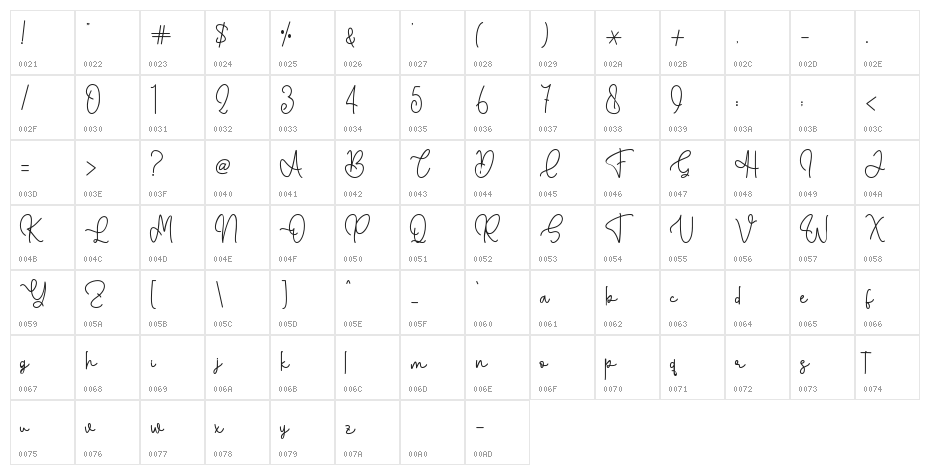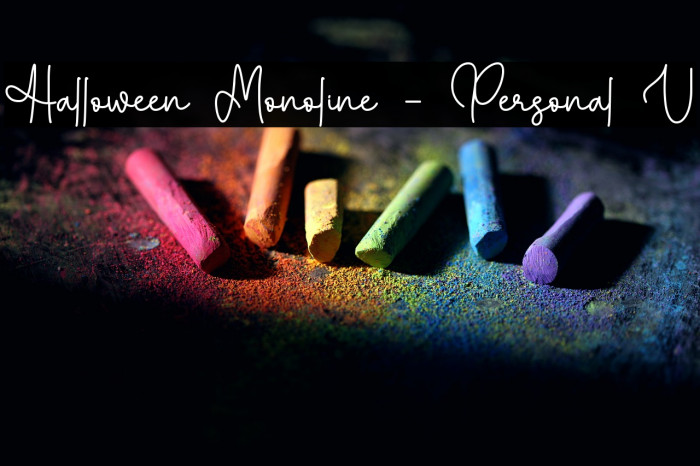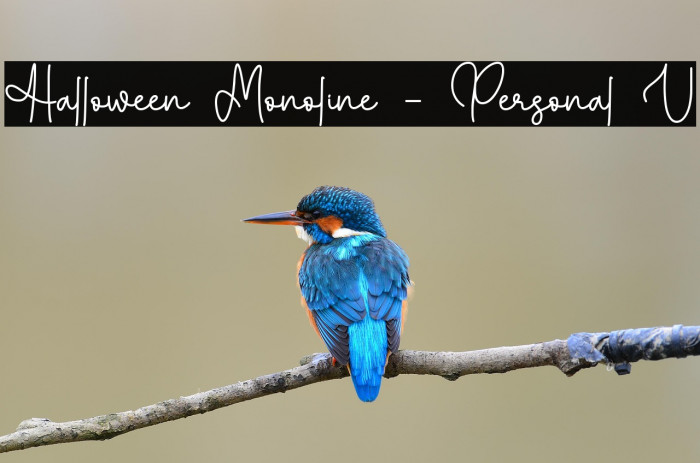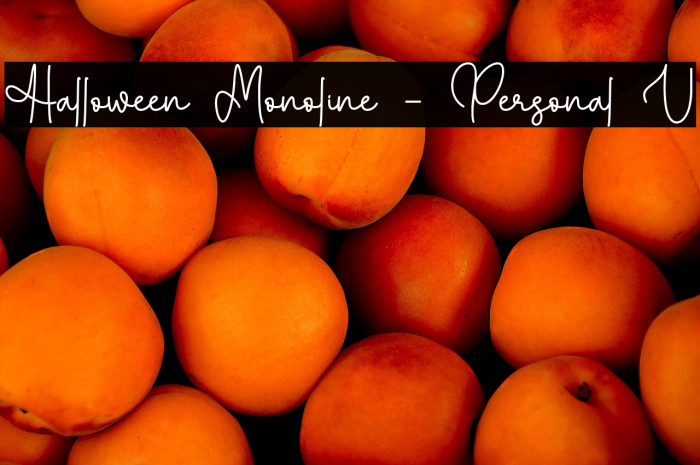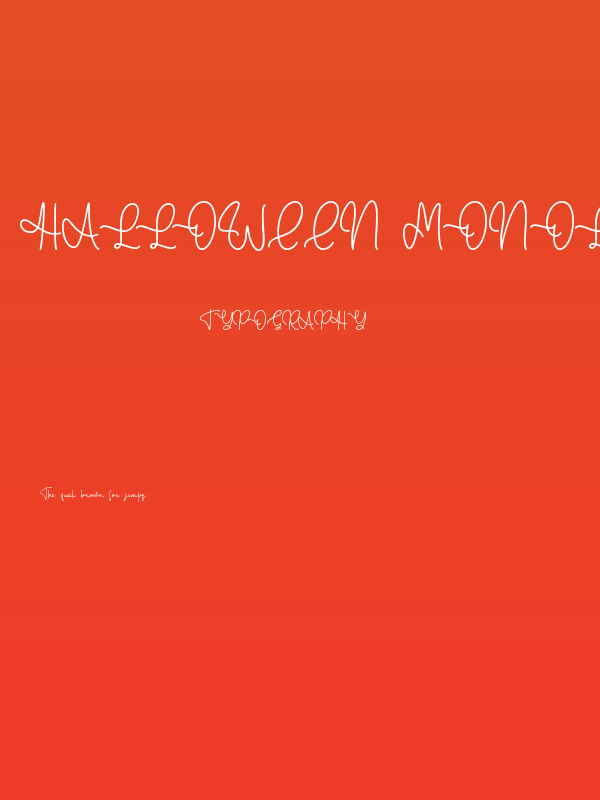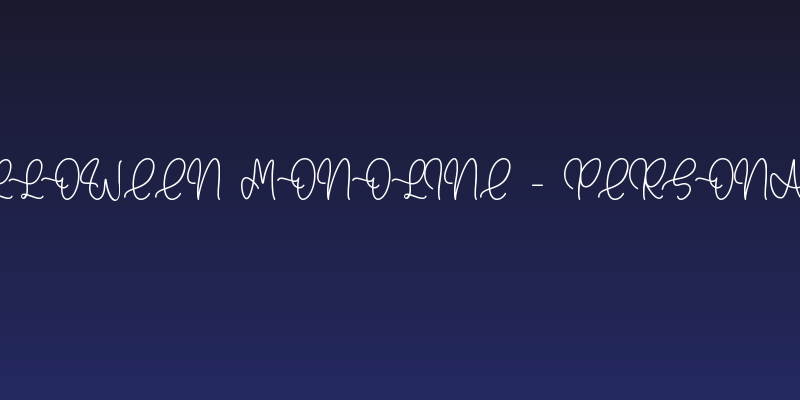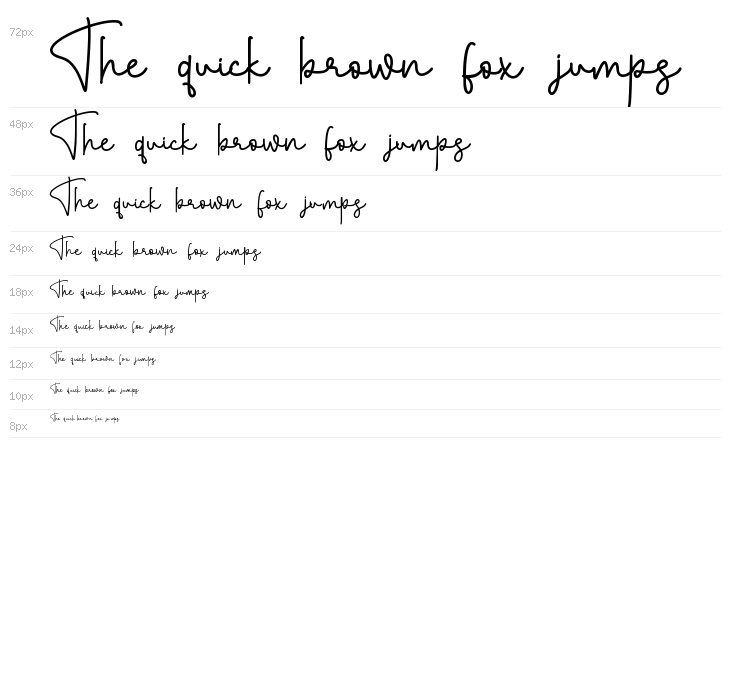
Halloween Monoline - Personal U Font
Halloween Monoline - Personal U Description
This font features a playful and whimsical monoline style, characterized by its continuous, flowing strokes that create a sense of movement and fluidity. The uppercase letters are elegantly looped and interconnected, while the lowercase letters maintain a consistent, smooth flow. The numerals are distinct and maintain the same playful style, making them easily recognizable. Special characters are creatively designed, adding to the overall charm of the font. This font's unique style is perfect for adding a touch of personality and creativity to any project.
| Use Case | Logos, Invitations, Creative projects |
| Proposed Projects | Ideal for greeting cards, invitations, playful branding, and creative projects. |